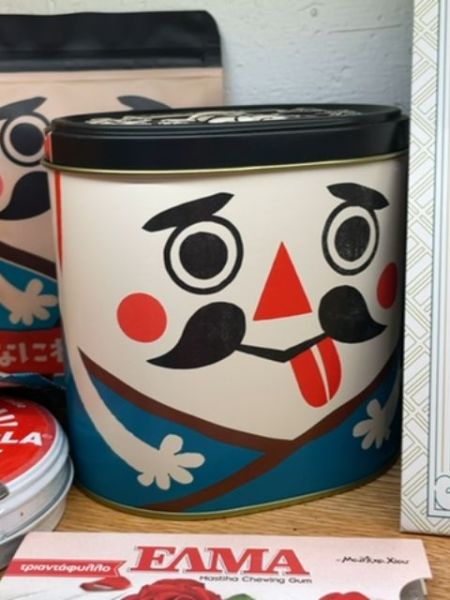
Tengu Tongari Corn Snacks
These are savory corn snacks shaped like cones, offering a crunchy texture and a slightly salty flavor.
The typography on the packaging is minimal, allowing the playful mascot to dominate. The font used is likely a sans-serif style, chosen for clarity and modern appeal. Its simplicity complements the lively and intricate design of the mascot, ensuring that the focus remains on the character while maintaining legibility.
The packaging features a cylindrical tin decorated with a playful face, reminiscent of a traditional Japanese Tengu mask. The tin is colorful, with bold reds, blues, and blacks creating a whimsical and eye-catching design that appeals to both children and adults.
- Inspired by Japanese folklore character Tengu.
- Popular among children and adults alike.
- Often used for festive and seasonal promotions.